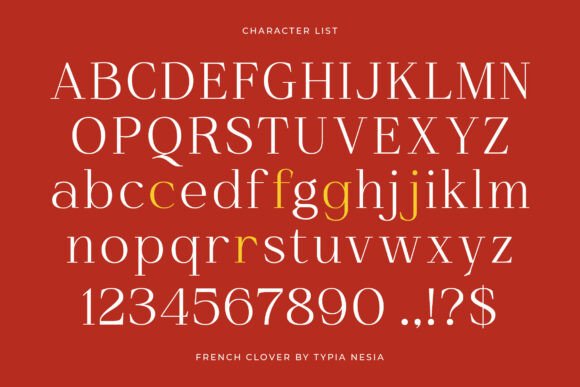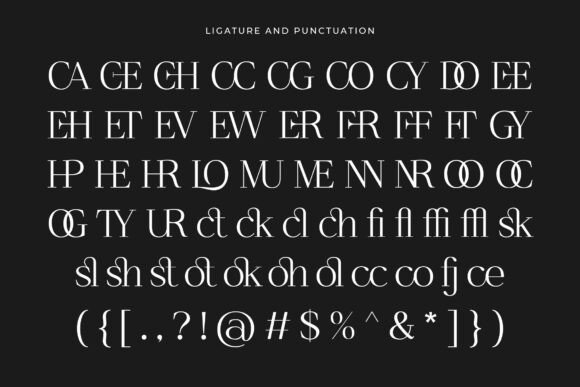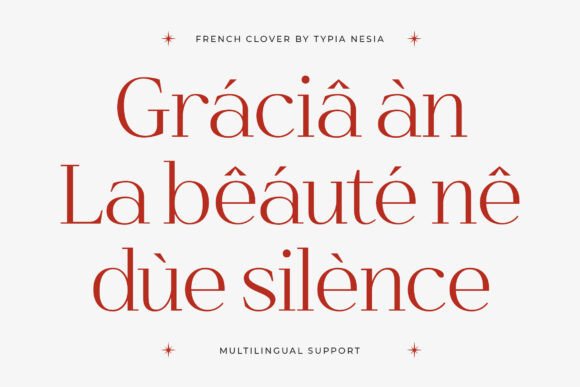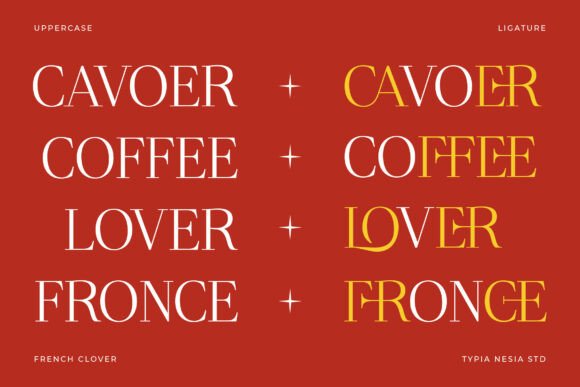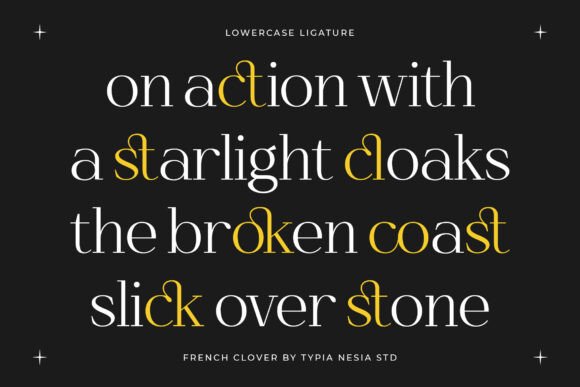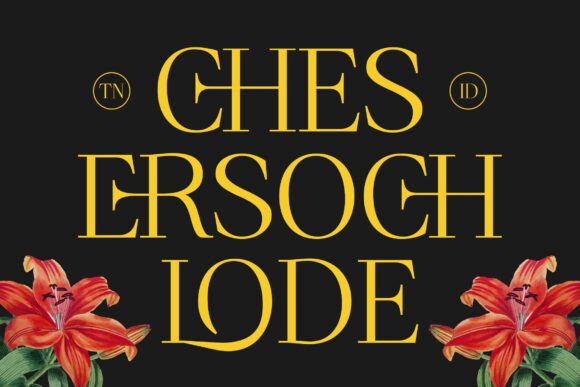
Introducing French Clover Font: Elevate Your Designs with Elegance and Luxury
In the world of typography, a font can make or break the aesthetic of a design. For creators who value elegance and refinement, finding the right font is crucial. This is where French Clover Font comes in – a classy beauty luxury serif font that embodies the perfect balance of modern and royal aesthetics.
What is French Clover Font?
French Clover is a meticulously crafted serif font, designed to cater to the needs of fashion-forward designers, luxury brands, and creatives who seek to elevate their visual identity. With its refined strokes, stylish ligatures, and high-contrast letterforms, French Clover exudes a timeless elegance that is sure to make every layout feel premium and artfully designed.
Key Features of French Clover Font
- Elegant Balance of Modern and Royal Aesthetics: French Clover seamlessly blends modern sensibilities with royal flair, making it an ideal choice for luxury brands and high-end designs.
- Refined Strokes and High-Contrast Letterforms: The font’s refined strokes and high-contrast letterforms create a sophisticated visual identity that is perfect for fashion magazines, perfume branding, and luxury skincare packaging.
- Stylish Ligatures: French Clover comes with stylish ligatures that add a touch of elegance to any design, making it perfect for cosmetic labels, signature logo designs, and boutique branding.
- Timeless Visual Identity: The font’s classic design ensures that your visual identity remains timeless, effortlessly capturing the essence of luxury and sophistication.
Perfect for Luxury Designs
French Clover Font is ideal for a wide range of luxury designs, including:
- Fashion Magazines: Elevate your fashion magazine with the elegance and sophistication of French Clover.
- Perfume Branding: Create a luxurious brand identity for your perfume with this stunning serif font.
- Luxury Skincare Packaging: Add a touch of elegance to your skincare packaging with French Clover.
- Cosmetic Labels: Create premium cosmetic labels that exude luxury and sophistication.
- Signature Logo Designs: Design stunning logos that capture the essence of luxury and refinement.
- Boutique Branding: Elevate your boutique brand with the elegance and sophistication of French Clover.
- Social Media Visuals: Create luxurious social media visuals that stand out from the crowd.
Why Choose French Clover Font?
With French Clover Font, you can:
- Enhance Your Brand: Elevate your brand with the elegance and sophistication of French Clover.
- Create Luxurious Designs: Craft luxurious designs that capture the essence of refinement and elegance.
- Stand Out from the Crowd: Differentiate your brand with a unique and sophisticated visual identity.
In conclusion, French Clover Font is a classy beauty luxury serif font that is perfect for creators who value elegance and refinement. With its refined strokes, stylish ligatures, and high-contrast letterforms, this font is sure to elevate your designs and make your brand stand out from the crowd. So why wait? Download French Clover Font now and start creating luxurious, timeless designs that capture effortlessly.